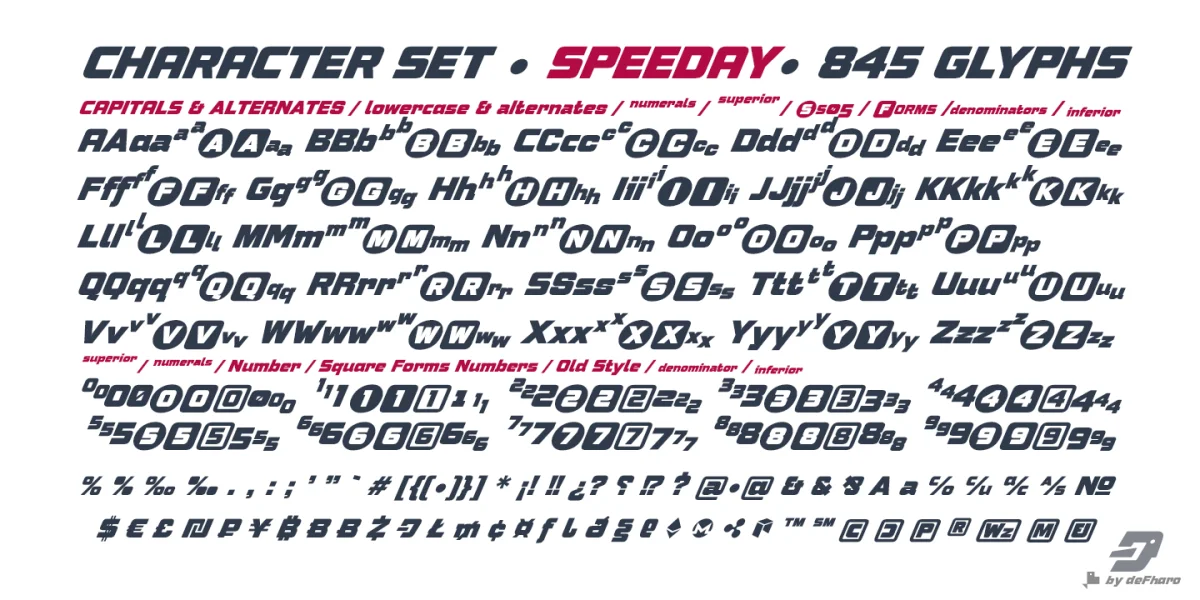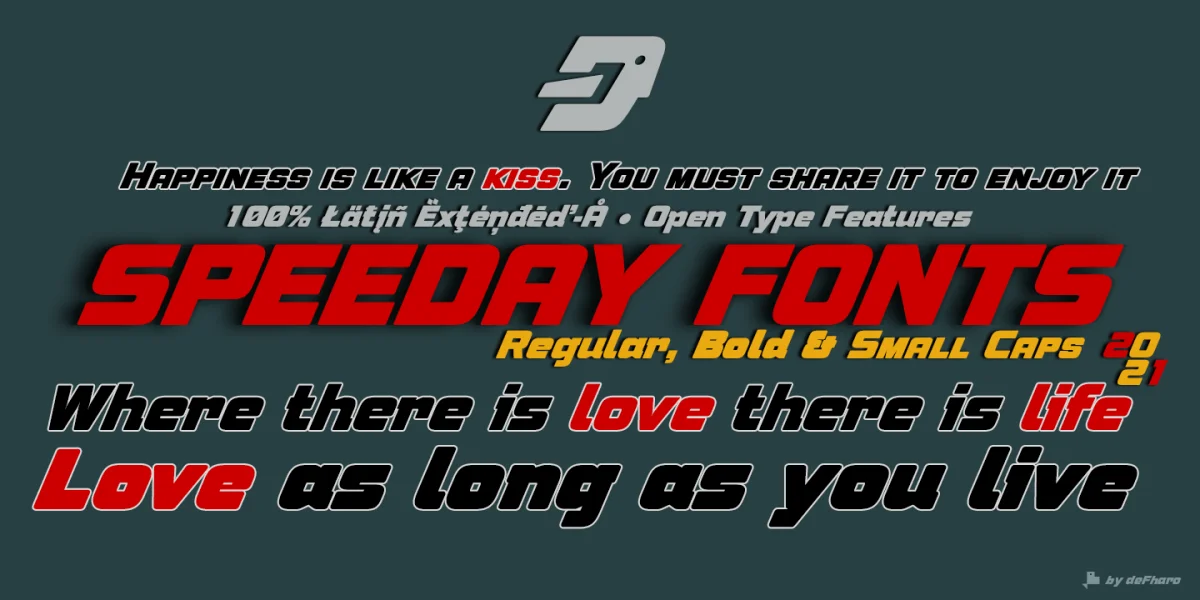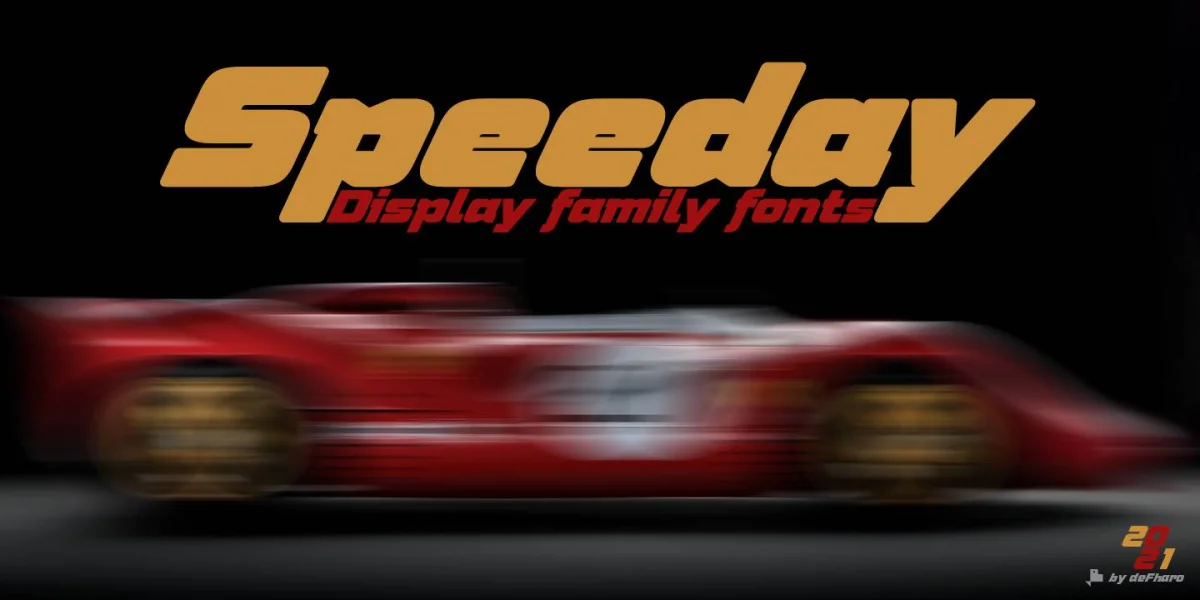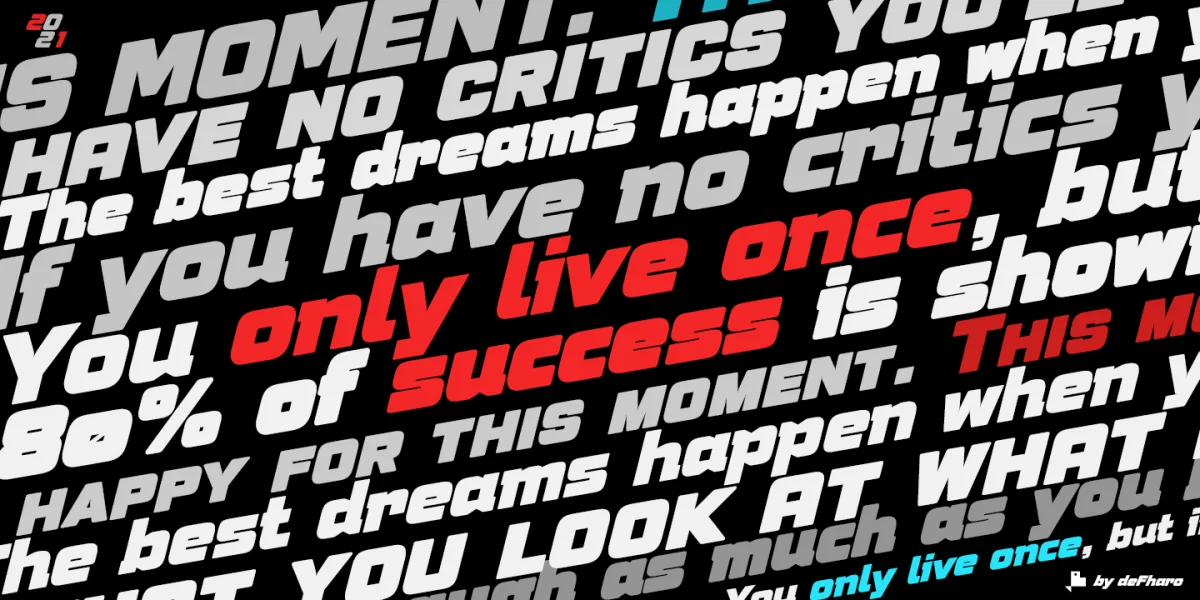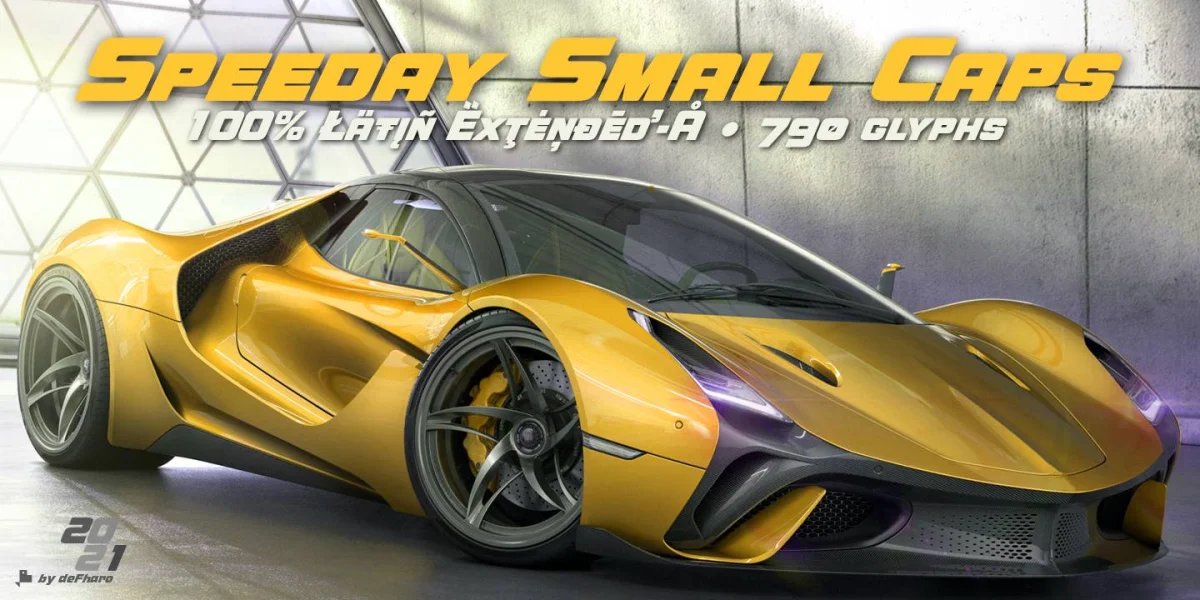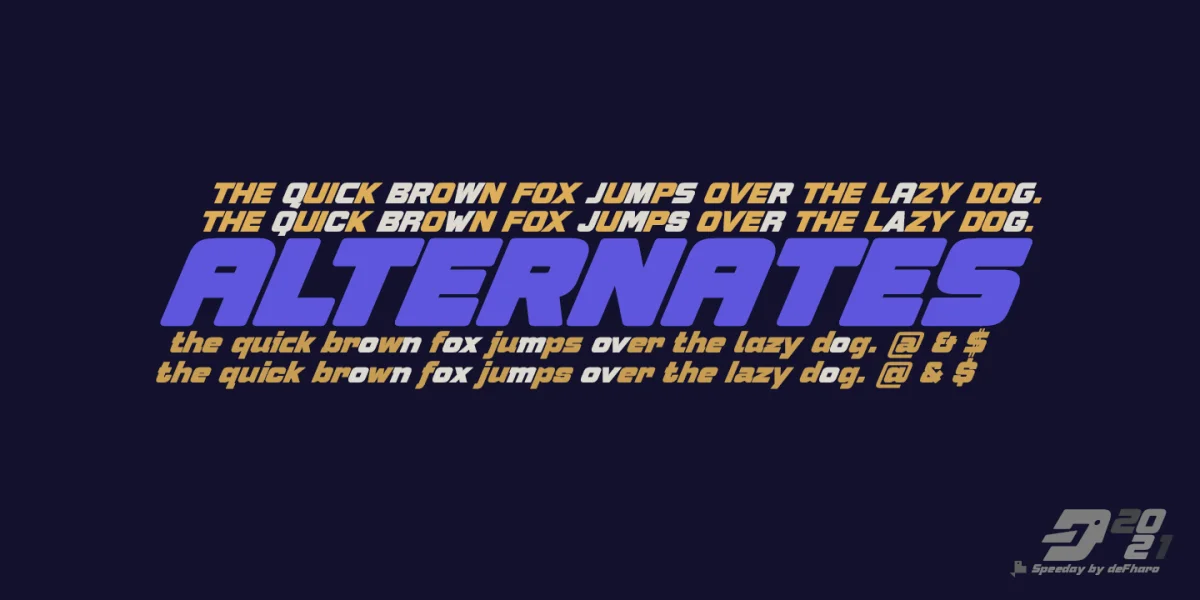
Speeday is a Display and Sans Serif typeface family, inclined at 23 ° with a rounded finish, with 3 styles, Regular, Bold & Small Caps that include 9 sets of numbers, 3 uppercase and alternative letters, as well as advanced Open Type functions.
Thick typeface with a contemporary appearance that provides great dynamism to the texts written with it, its use in graphic design, editorial and advertising guarantees originality, difference and maximum readability, the kerning has been carefully configured in all versions.